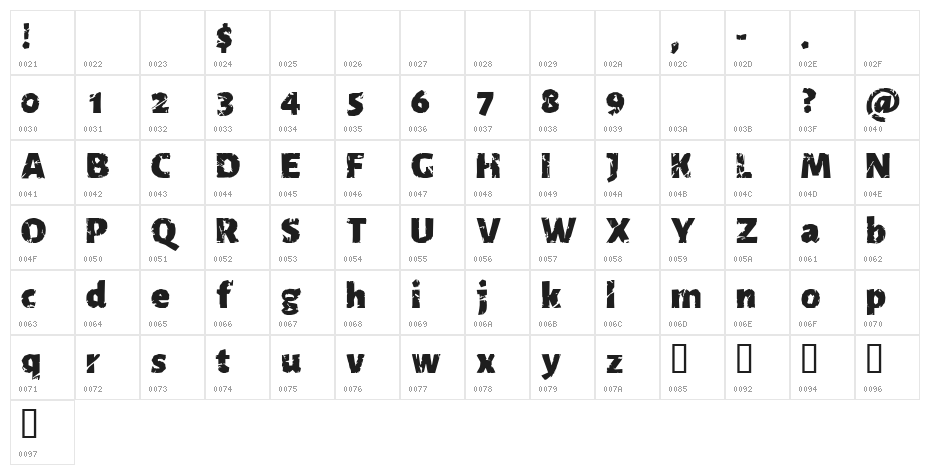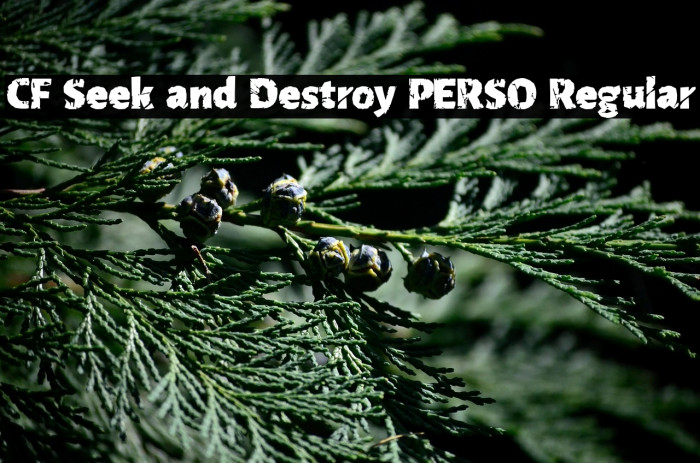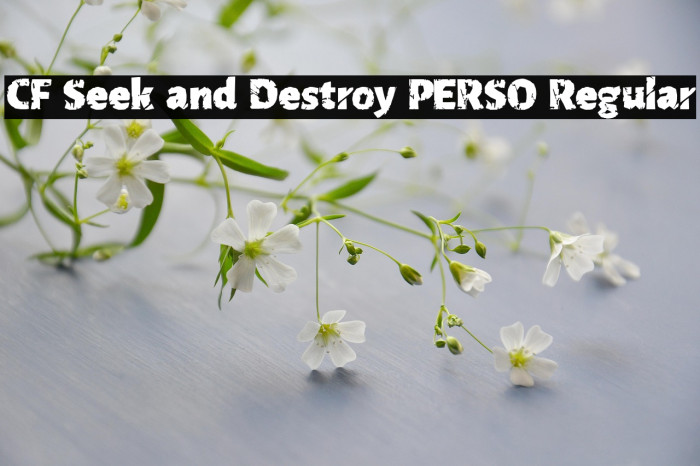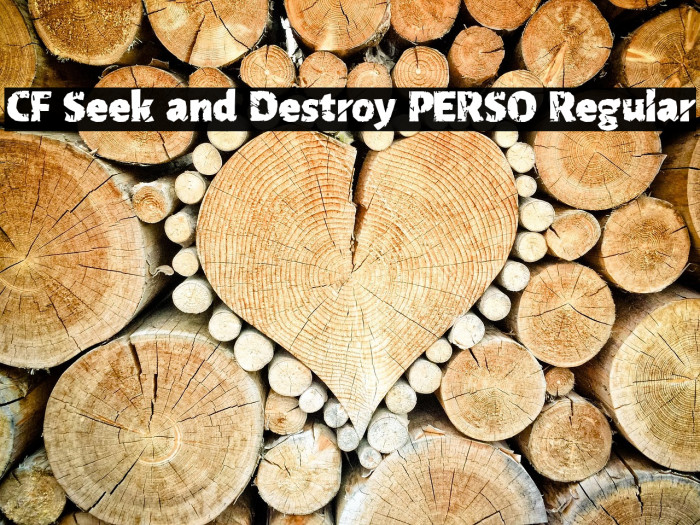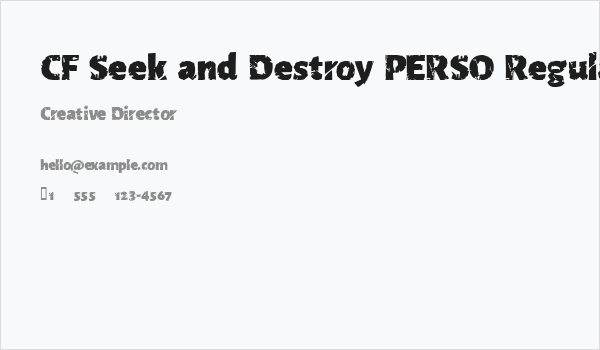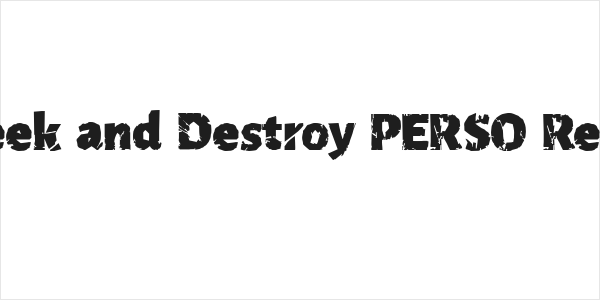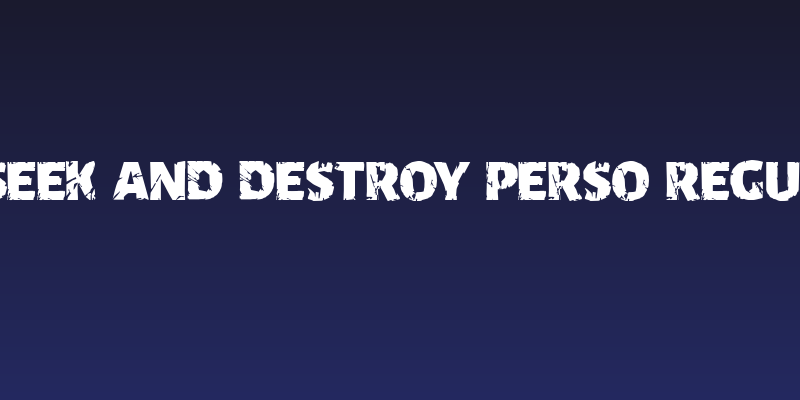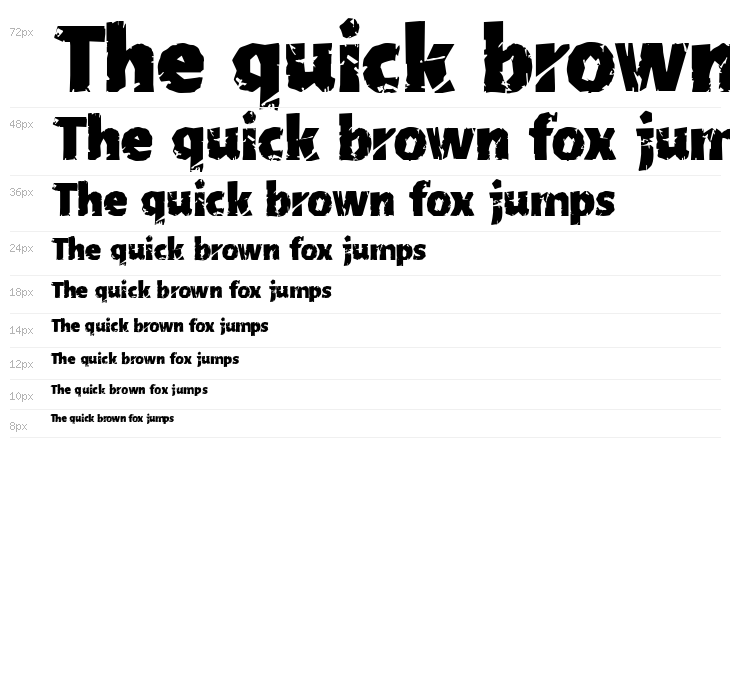
CF Seek and Destroy PERSO Regular Font
CF Seek and Destroy PERSO Regular Description
This font features a bold, distressed style with a rugged, grunge aesthetic. The characters are heavily textured, giving the appearance of being worn or eroded, which adds a dynamic and edgy feel. The uppercase and lowercase letters maintain a consistent weight, while the numbers and special characters follow the same distressed theme. The font's unique style makes it stand out, ideal for projects that require a bold statement or a rebellious, urban vibe. Its irregular edges and rough texture contribute to its distinctive personality, making it suitable for creative and unconventional designs.
| Overall Style | Grunge, Urban, Edgy |
| Proposed Projects | Ideal for album covers, posters, streetwear branding, and edgy graphic designs. |